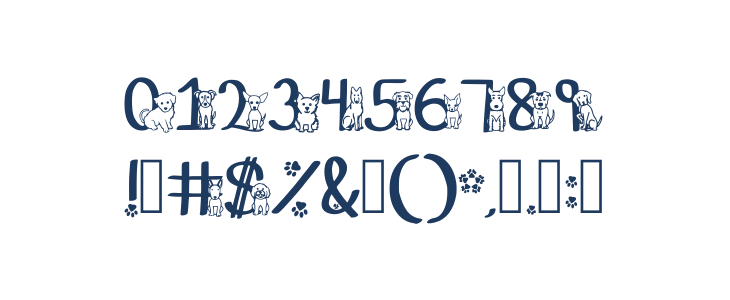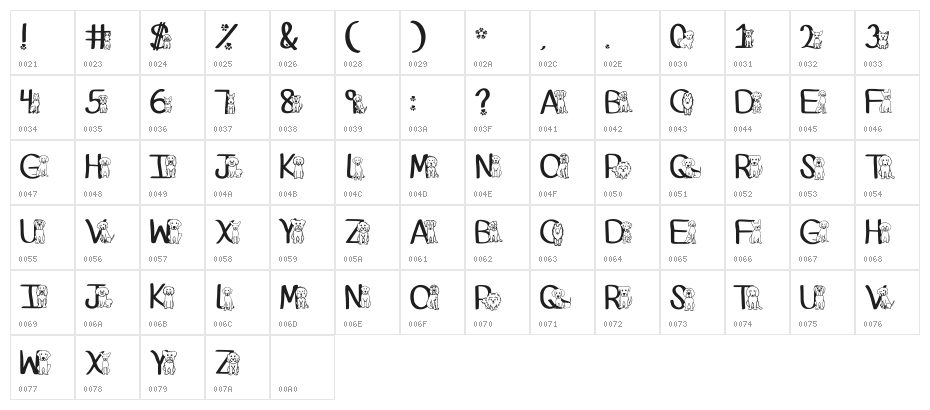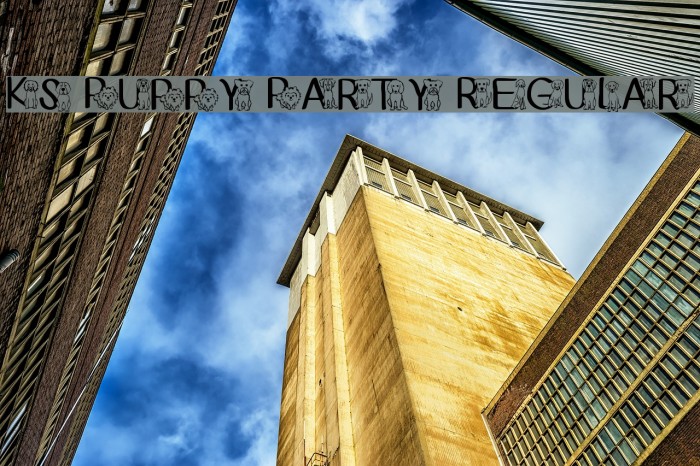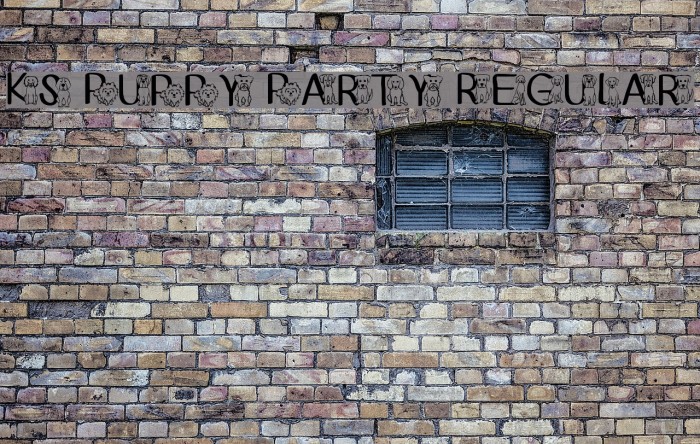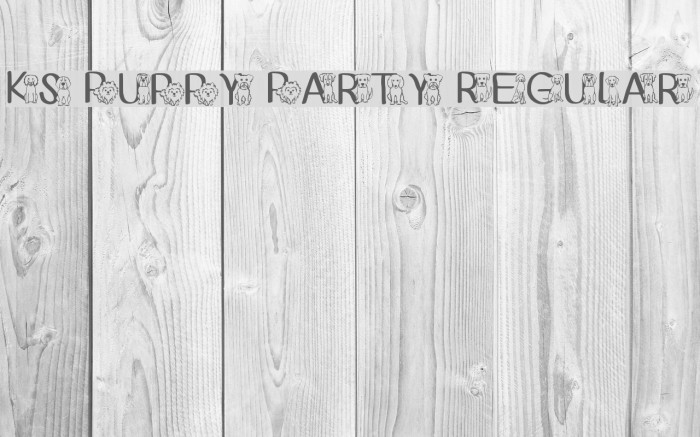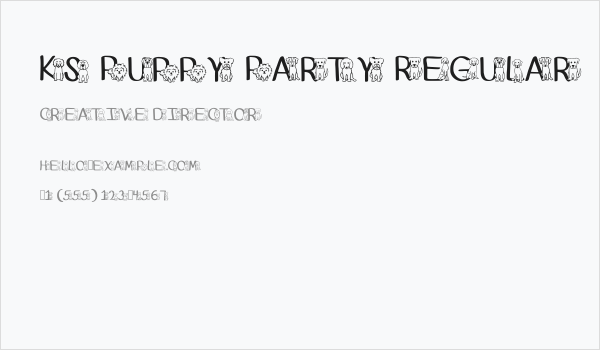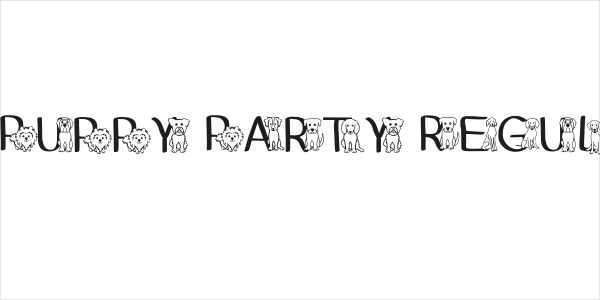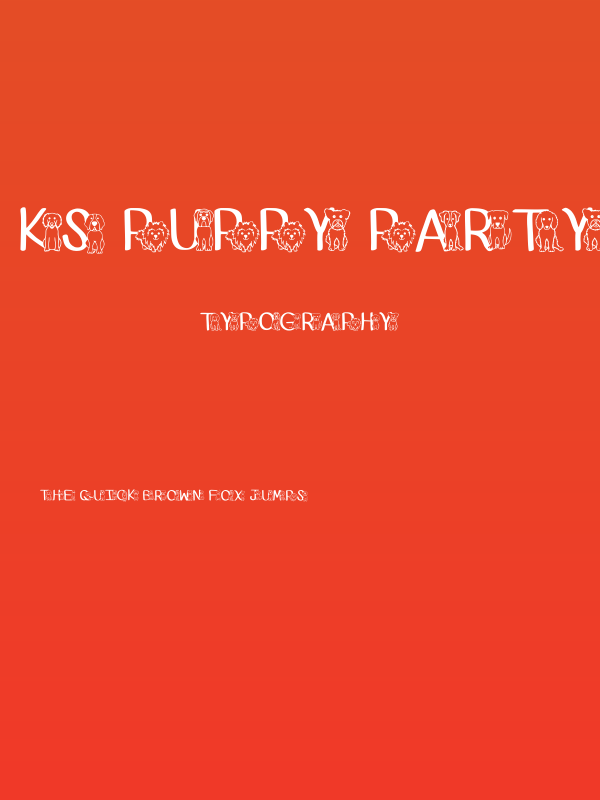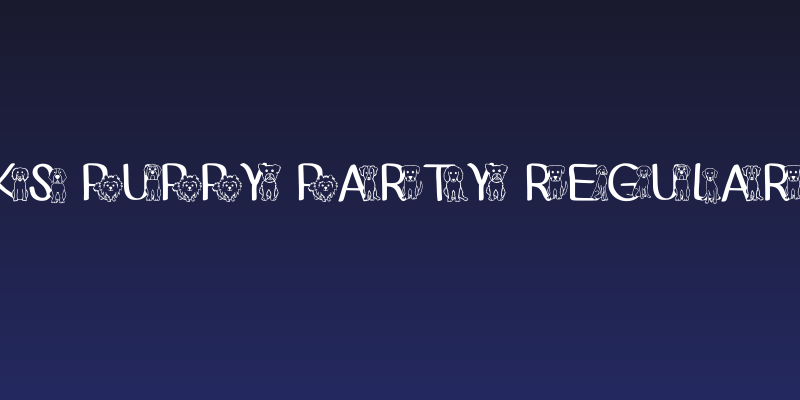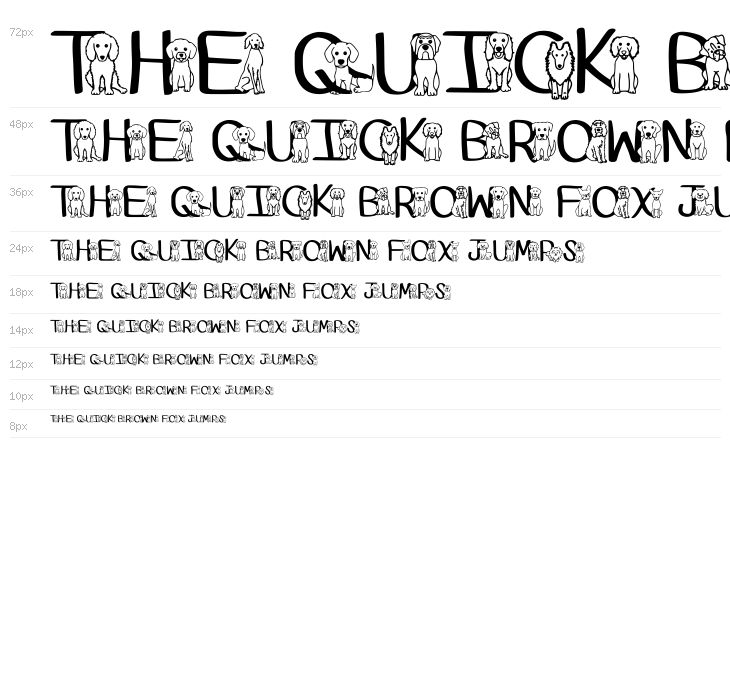
Ks Puppy Party Regular Font
Ks Puppy Party Regular Description
This playful and whimsical font features each letter and number accompanied by a charming puppy illustration. The characters are bold and rounded, providing a friendly and approachable feel. The design is perfect for children's materials or any project that requires a fun and lighthearted touch. The inclusion of puppies adds a unique decorative element, making it stand out for creative uses. The font maintains readability while incorporating detailed illustrations, ensuring it remains functional as well as decorative.
| Proposed Projects | Ideal for children's books, pet-related branding, playful invitations, and educational materials. |